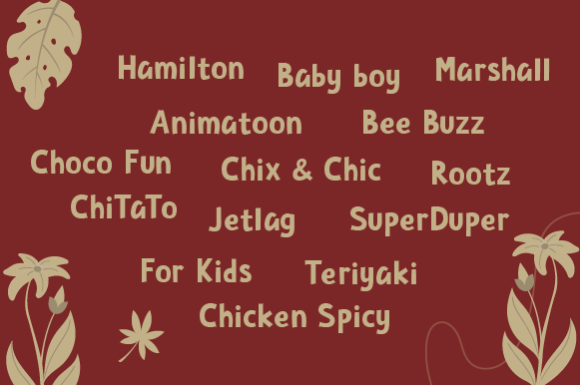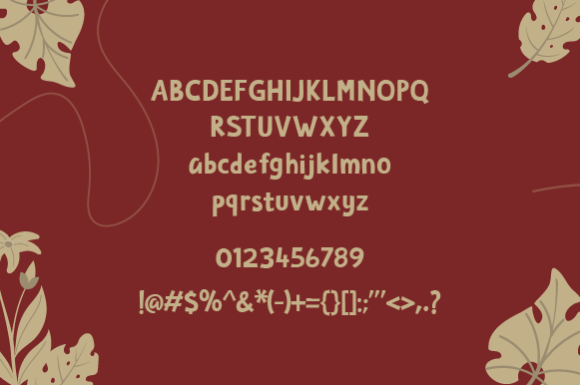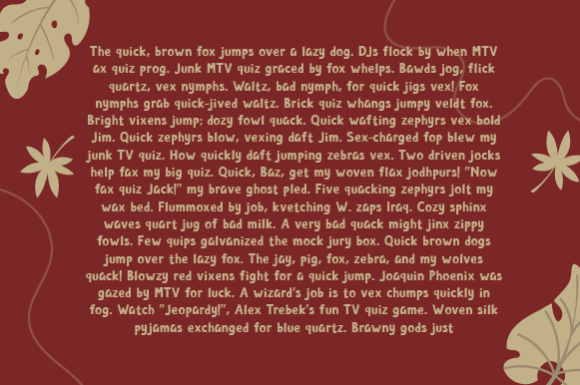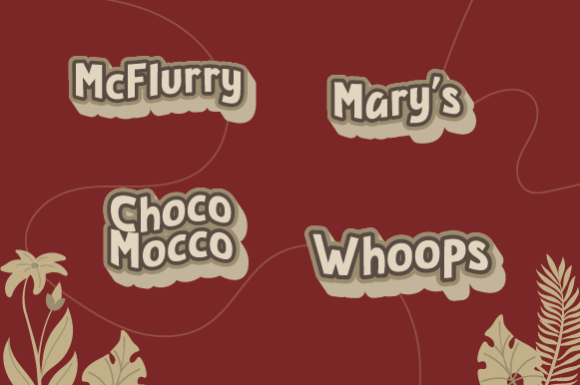
Introduction to Kerumba Font Font
Fonts play a crucial role in design, and the Kerumba Font font is a typeface that brings both character and versatility to any project. Whether you’re working on a branding project, a website, or a print design, the Kerumba Font font offers a unique style that can elevate your work.
Kerumba is a unique and eye-catching font that brings the spontaneous charm of handwriting to your designs.
With its lively and dynamic strokes, Kerumba is perfect for adding a personal touch to any project Whether youβre designing a logo, creating social media graphics, or crafting a heartfelt invitation, Kerumbaβs energetic style will make your text stand out.
Key Features of Kerumba Font Font
Why Choose Kerumba Font Font?
The Kerumba Font font is more than just a typeface β it’s a design tool that helps you communicate your message with style and clarity. Its unique character set and versatile design make it suitable for a wide range of applications, from elegant invitations to bold headlines.
With its carefully crafted letterforms and balanced proportions, the Kerumba Font font ensures readability and visual appeal across all mediums.
What makes Kerumba Font font special?
The Kerumba Font font stands out with its unique design, exceptional readability, and versatility across various design applications.